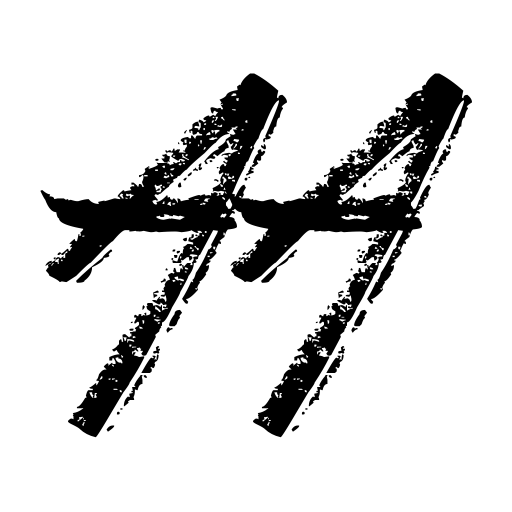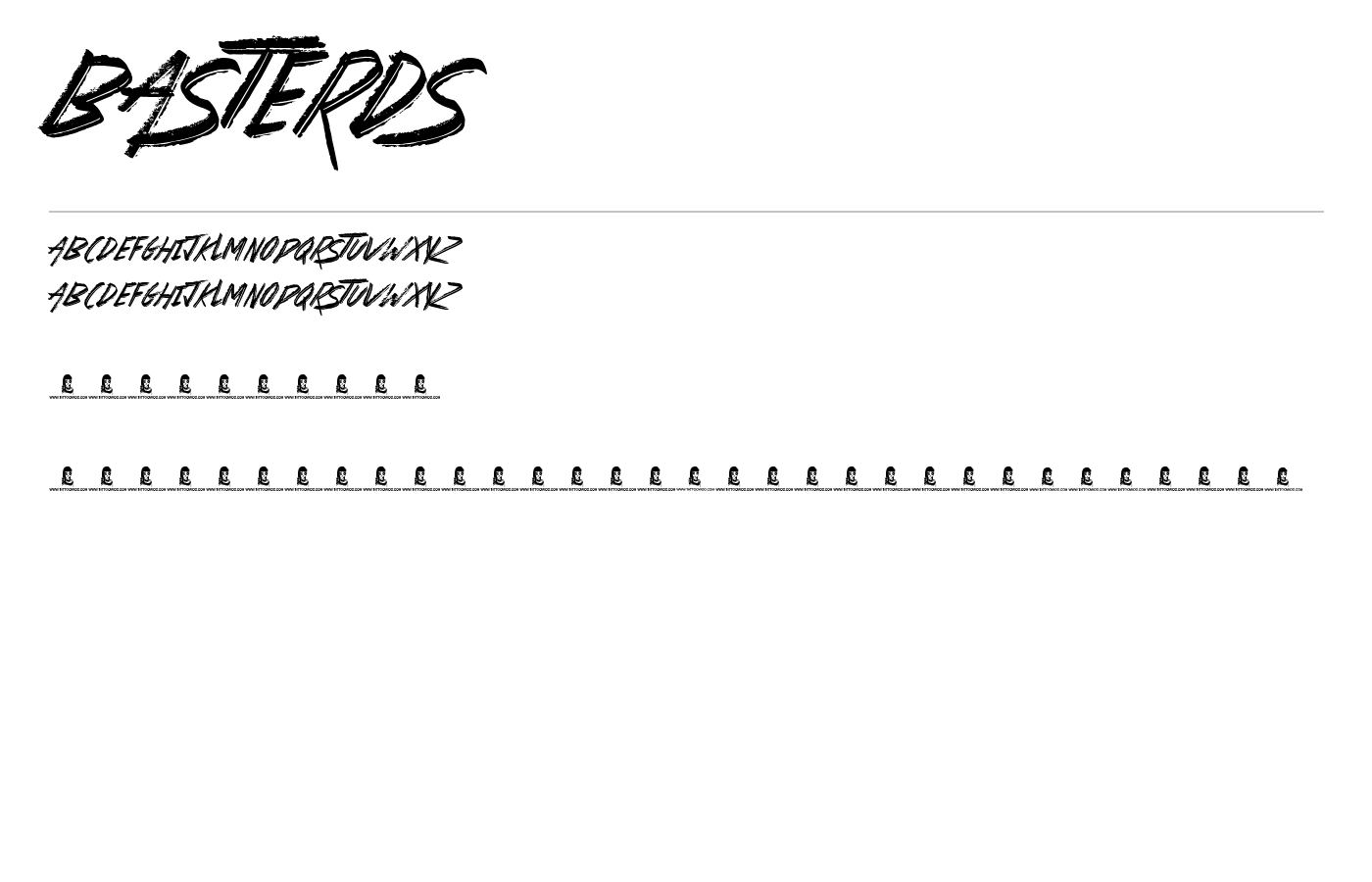
Basterds Font is a bold, expressive brush script with a raw, energetic style that mimics hand-painted lettering. Its rough, textured strokes and dynamic slant give it a rebellious and edgy personality, making it perfect for eye-catching headlines, posters, and branding that seek to convey a sense of attitude and creativity. This font works well in contexts where a strong, informal, and artistic impact is desired.
Basterds Font